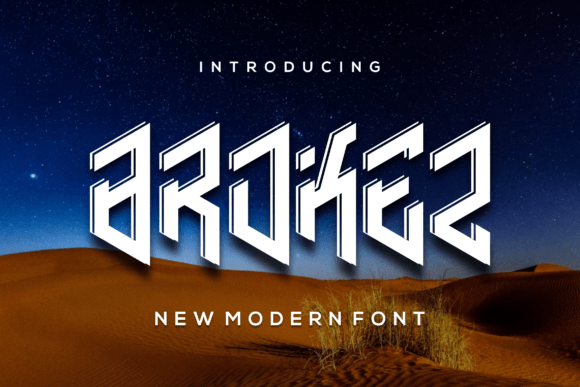
Unleash your creativity with Brokez, the modern display font that exudes uniqueness and captivates with its striking geometric design. Step into a world of limitless possibilities, where Brokez becomes your ultimate companion for a myriad of projects.
Immerse yourself in the world of typography with Brokez, a font that dances off the page with its distinct character. Its sharp angles and clean lines create a visual symphony that commands attention, making it the perfect choice for making a bold statement. Say goodbye to ordinary fonts and embrace the extraordinary with Brokez.
With Brokez, transform your words into captivating works of art. Its versatility knows no bounds, effortlessly adapting to various projects, from elegant signatures and logos to heartfelt wedding invitations and inspiring quotes. Create magazine covers that leave a lasting impression, book covers that entice readers, and website headers that demand attention. Let Brokez be your creative partner, guiding your designs to new heights.
Envision your brand standing out from the crowd, adorned with the distinctive charm of Brokez. Its geometric flair adds an edge to your logo, making it instantly recognizable and unforgettable. Design packaging that captivates customers, leaving them with a lasting impression of your brand's personality. Brokez is not just a font; it's an extension of your creativity, empowering you to craft designs that resonate with your audience.
Join the creative revolution and let Brokez ignite your imagination. Whether you're a seasoned designer or just starting your journey, Brokez is the perfect font to elevate your designs and make your mark on the world. Its versatility and captivating aesthetics make it a must-have for any creative arsenal. Download Brokez today and unlock a world of possibilities.